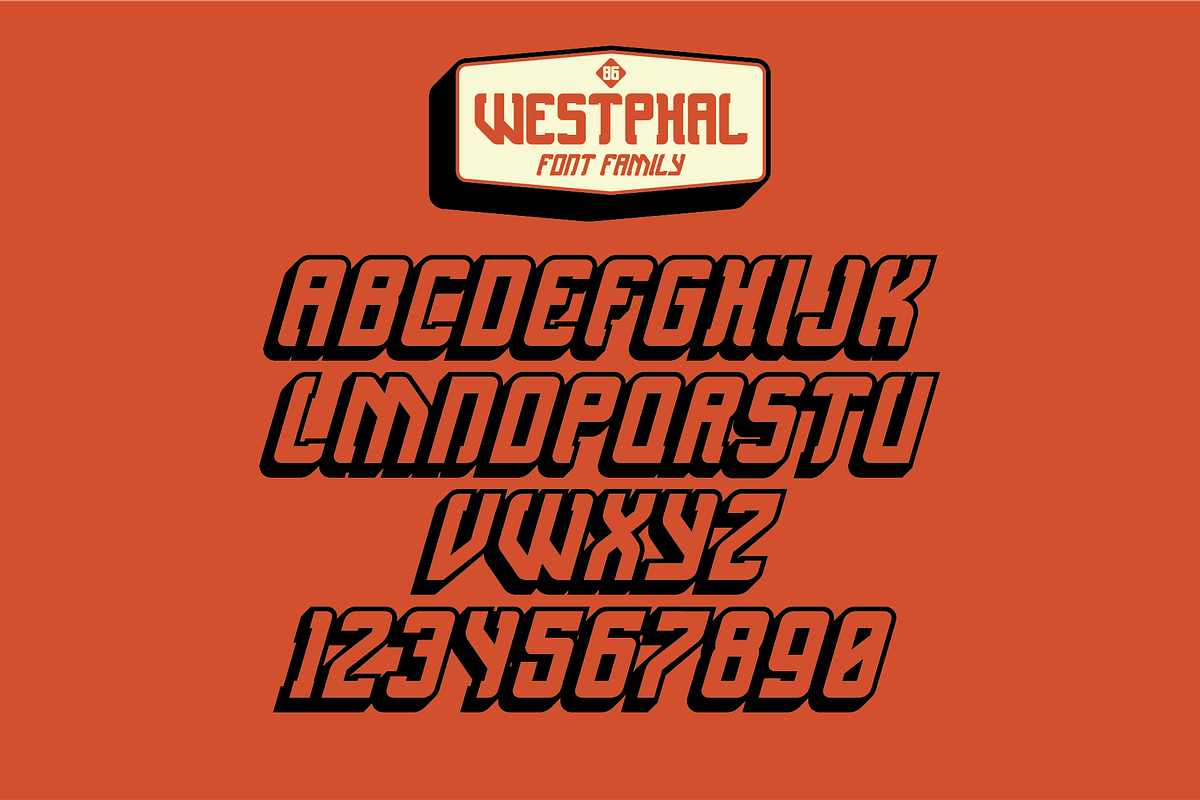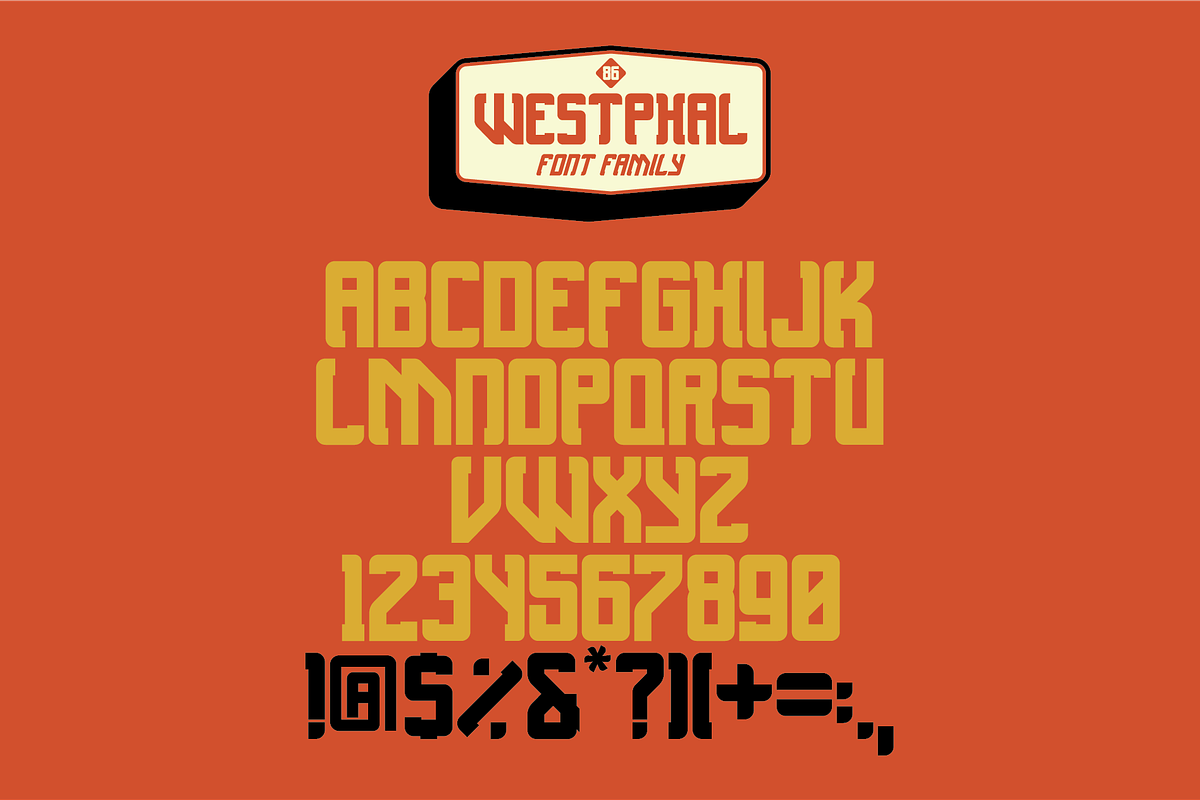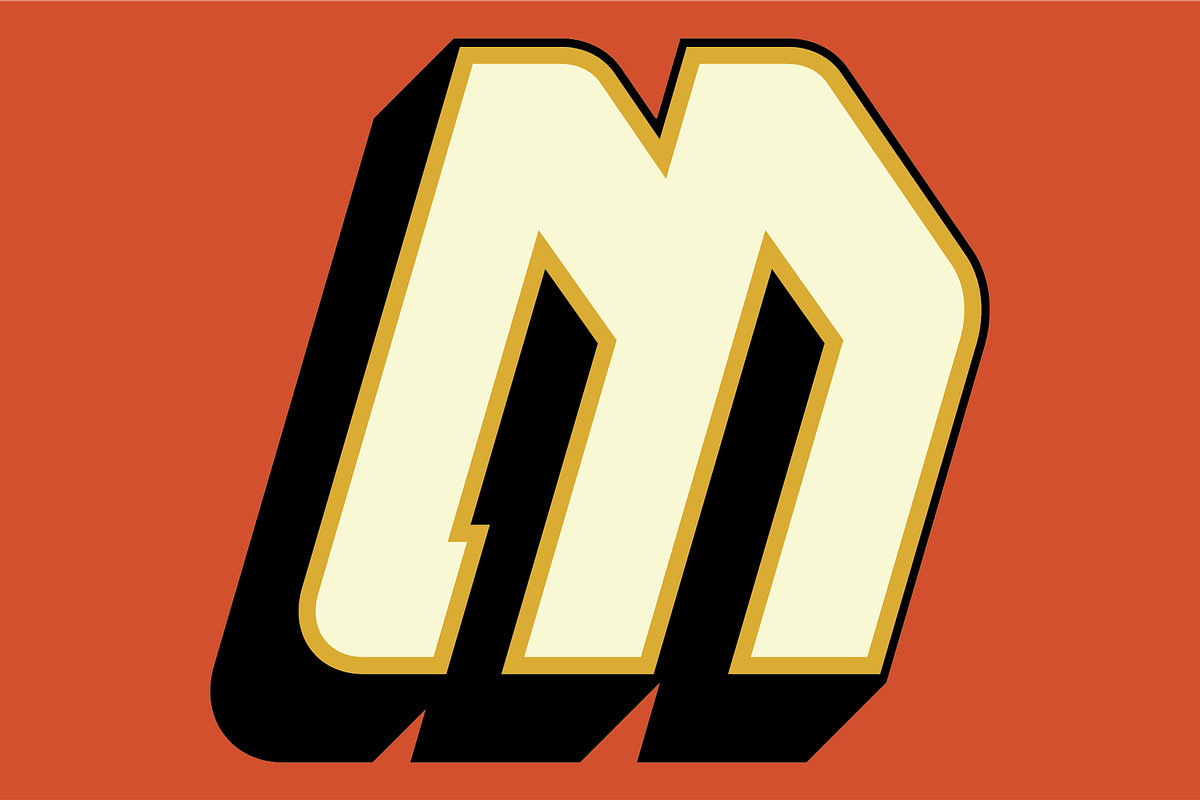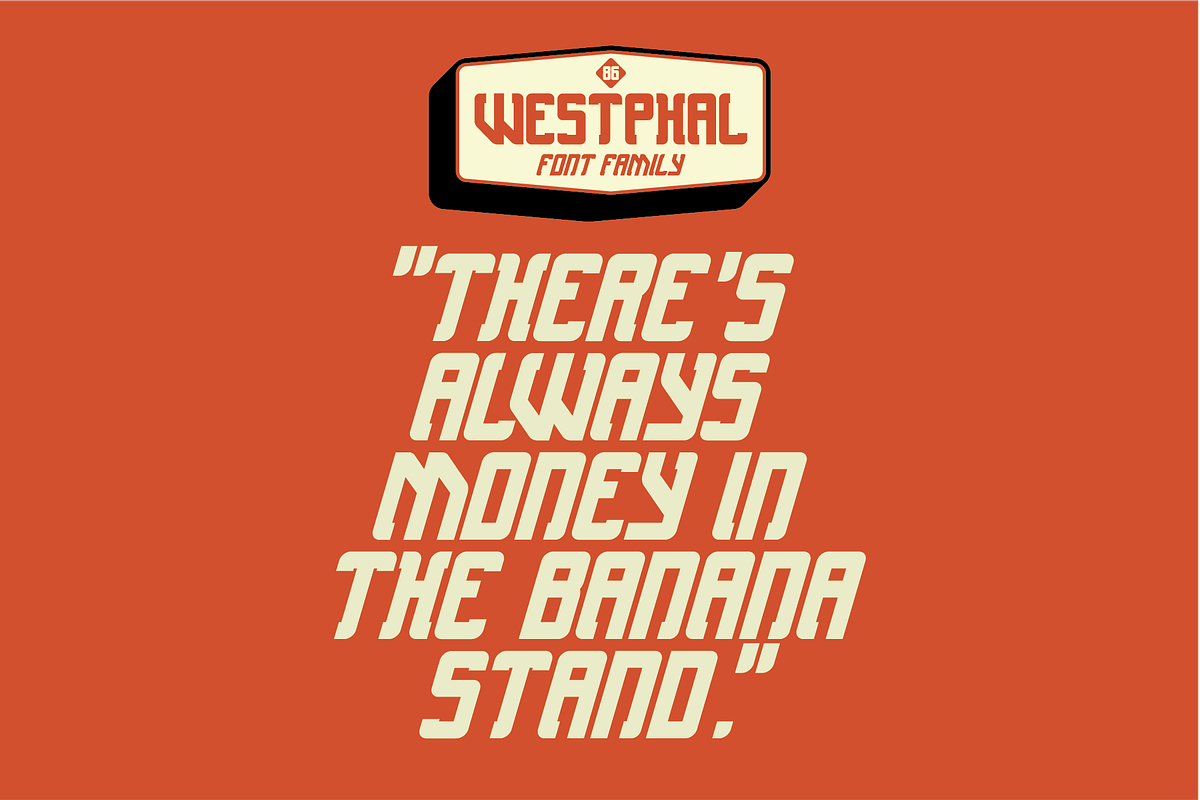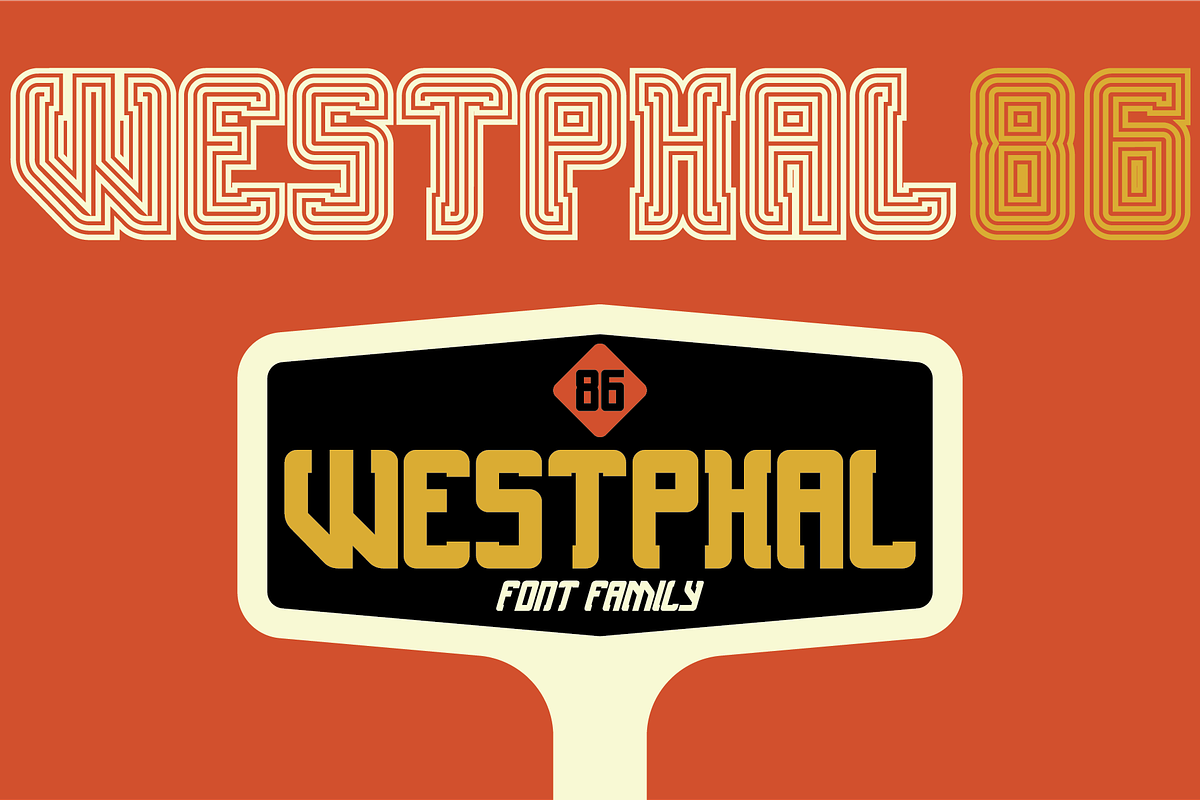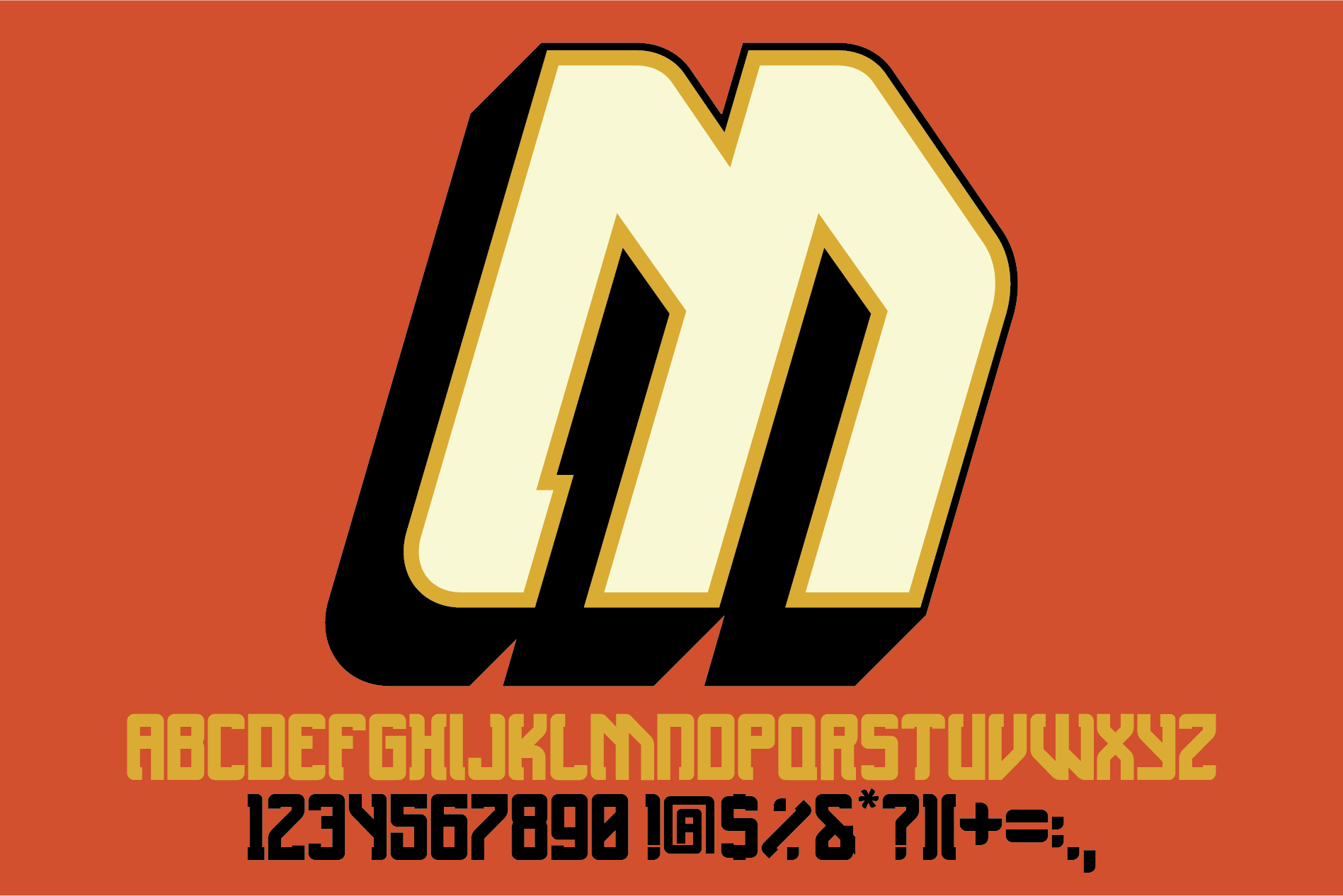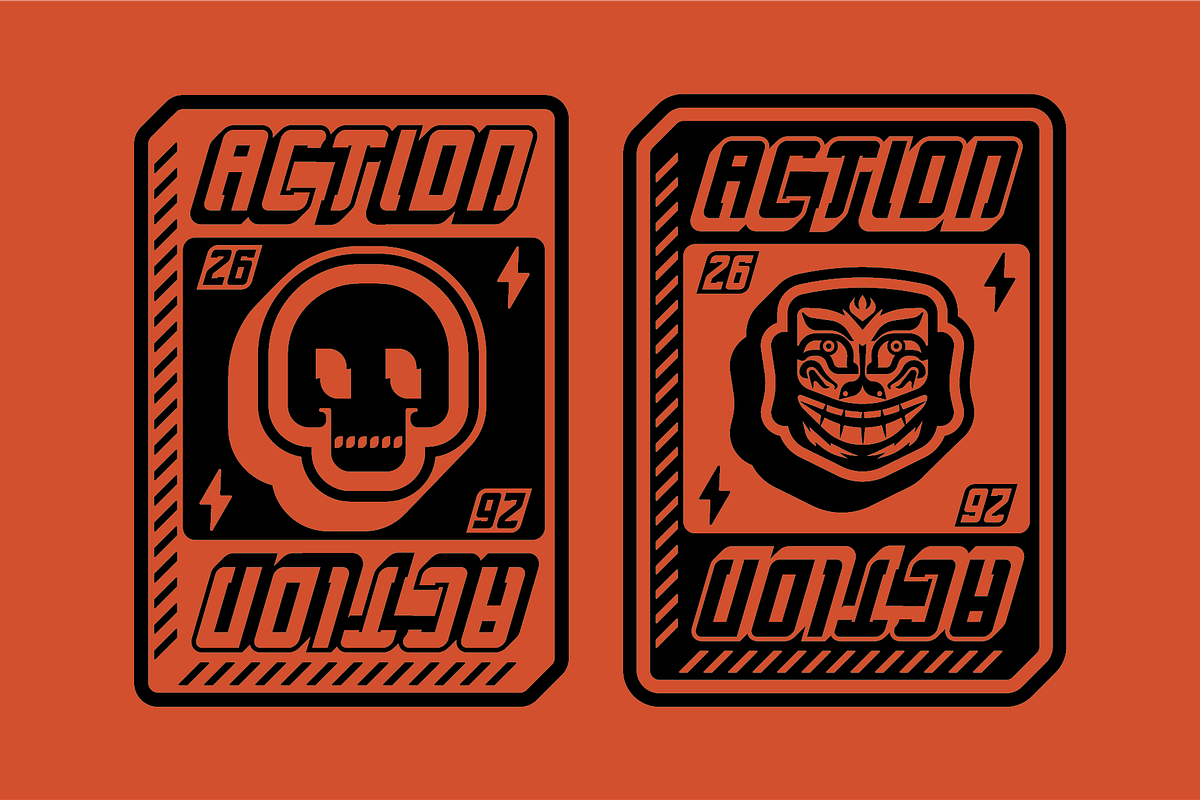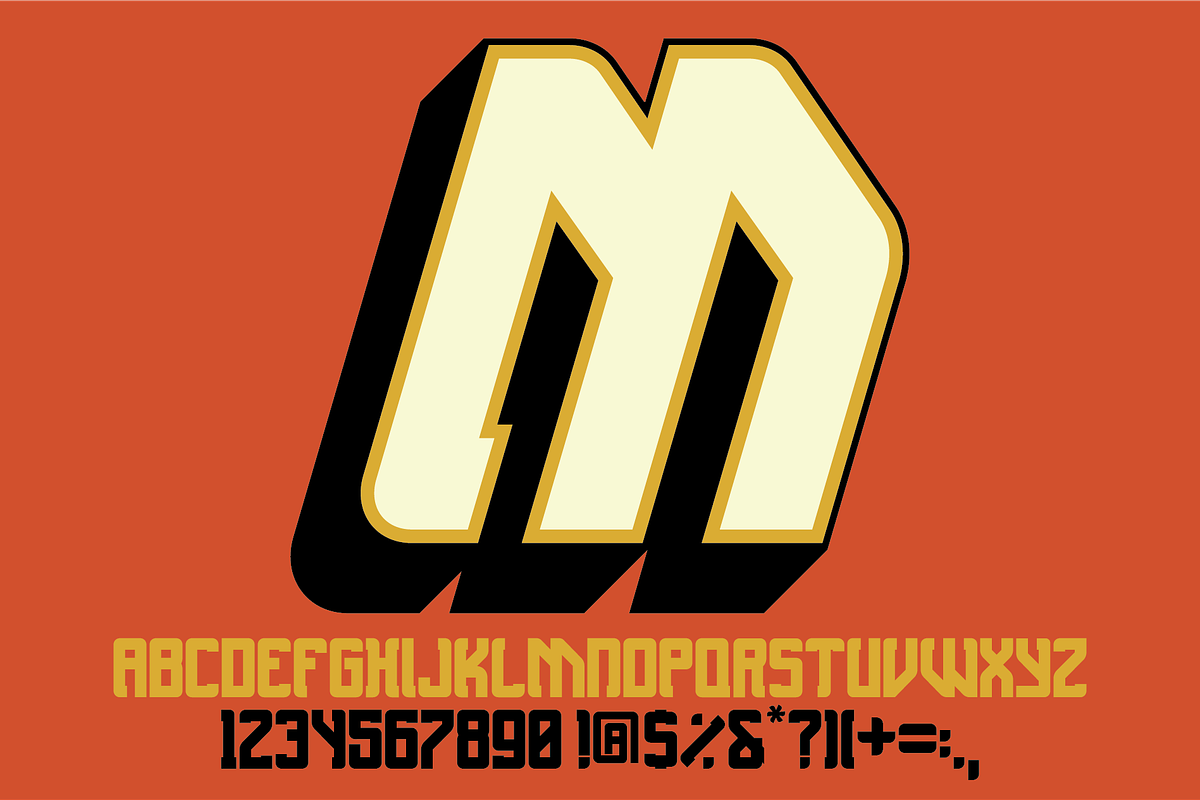
Westphal86 | Font Family
Westphal86 | Font is a collection of 4 unique styles that are tailor-made for design projects. These retro-themed fonts will add an incredible look to your next project.5